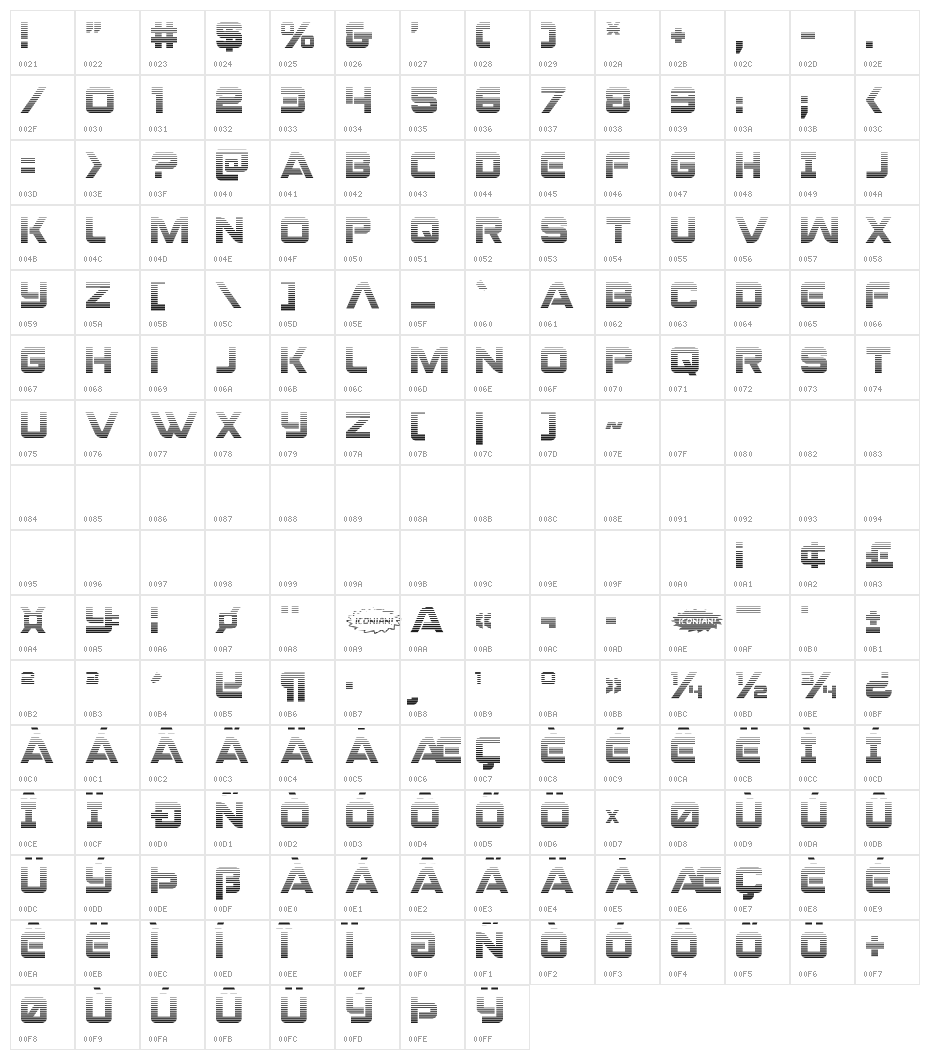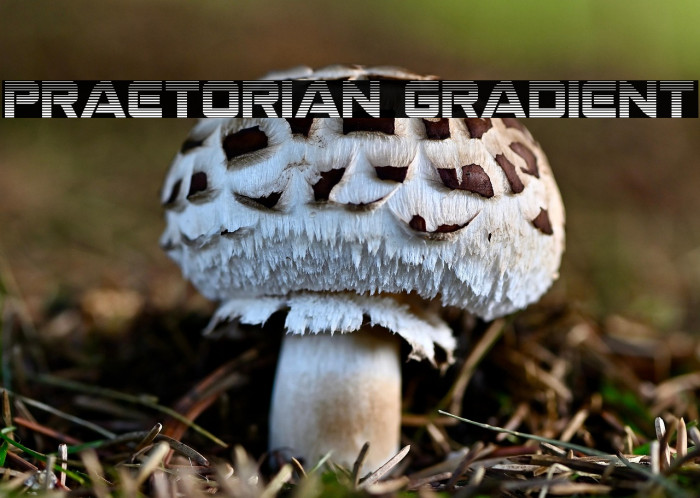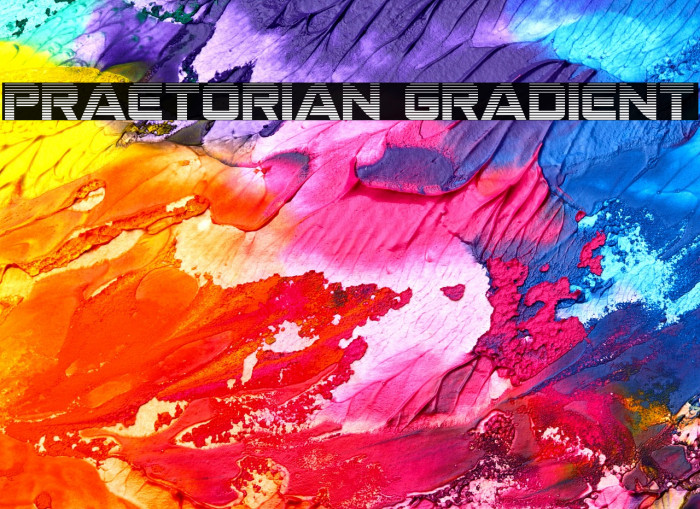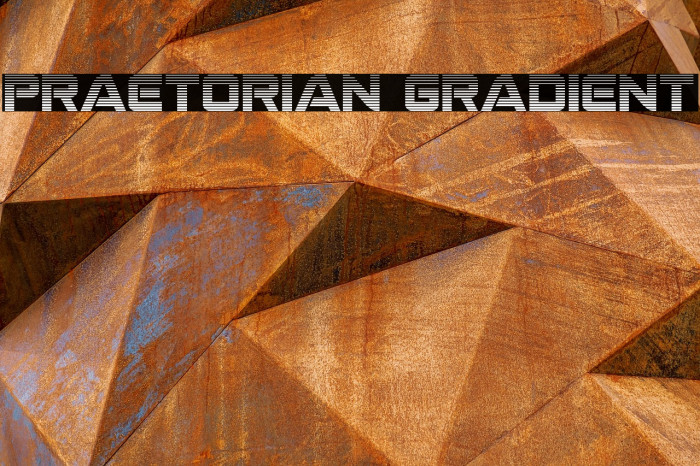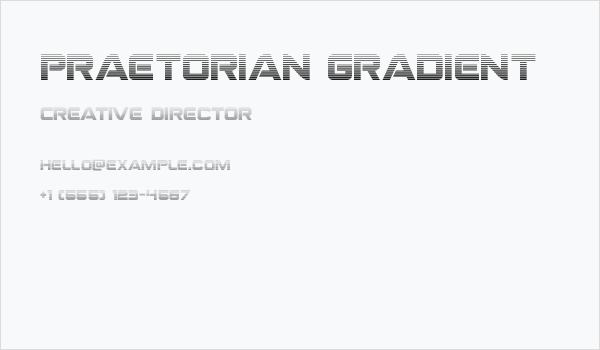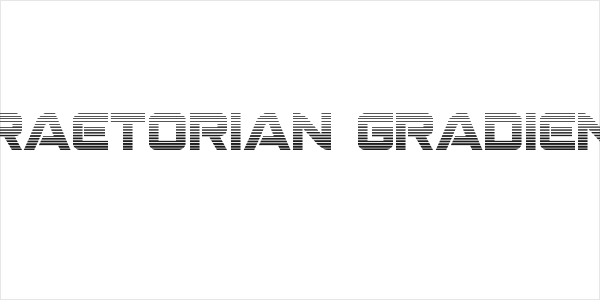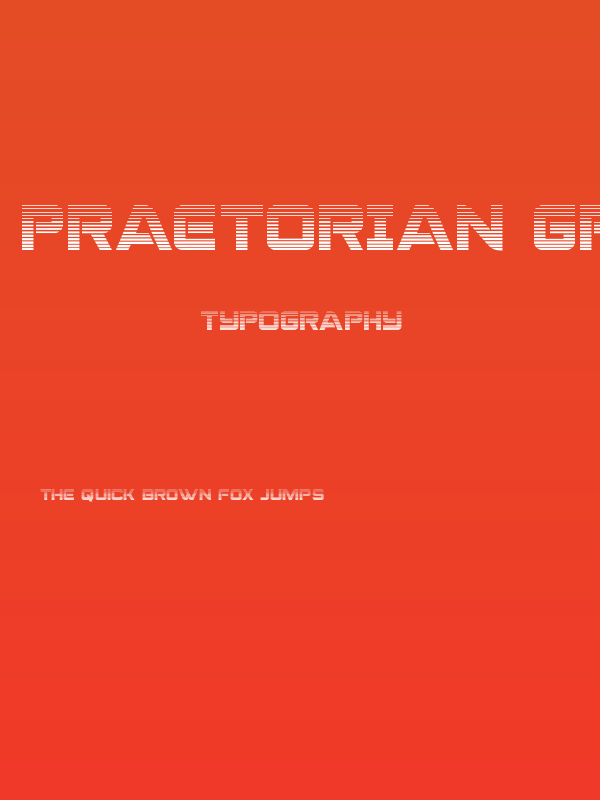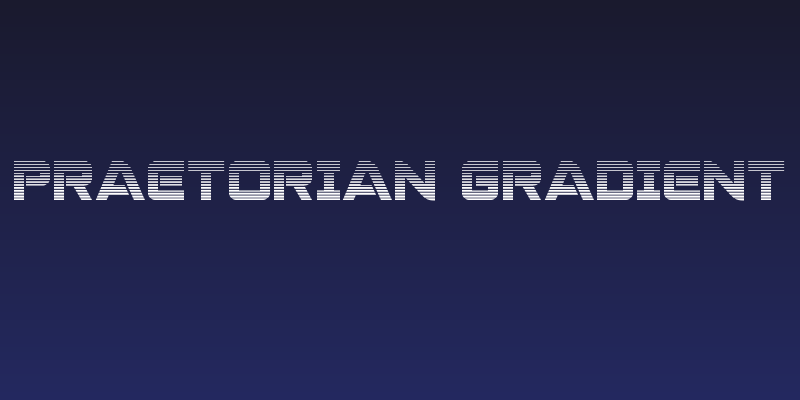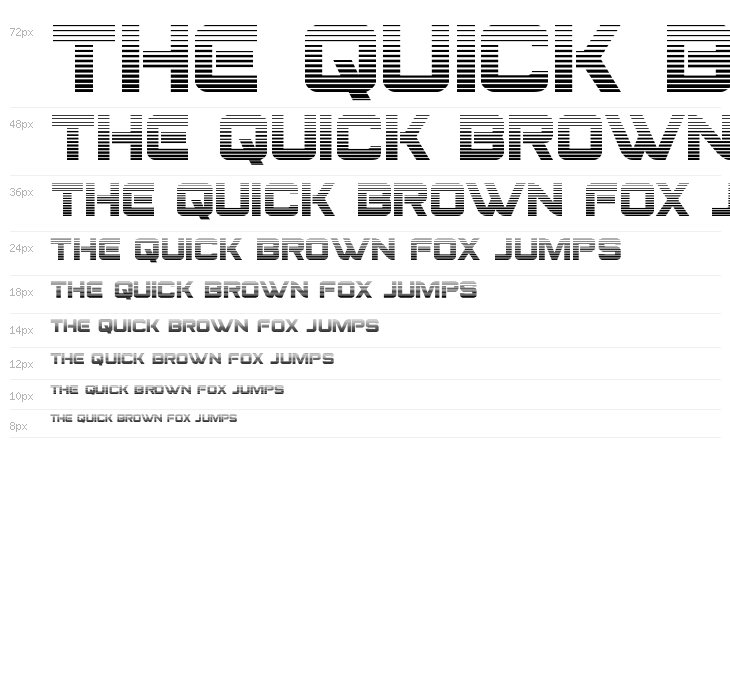
Praetorian Gradient Font
Praetorian Gradient Description
This font features a bold, futuristic design with a distinctive gradient effect created by horizontal lines running through each character. The uppercase and lowercase letters maintain a consistent width, giving the font a uniform appearance. The numbers and special characters are designed to match the overall aesthetic, making them ideal for digital and print media. The font's unique style is both eye-catching and modern, making it suitable for a variety of creative projects.
Proposed ProjectsIdeal for technology branding, sci-fi movie posters, video game titles, and modern advertising campaigns.